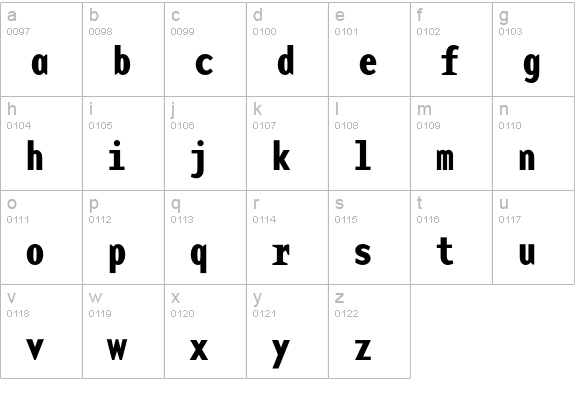
BaseMonoNarrowBold Font Details
BaseMonoNarrowBold is a sleek and modern typeface that combines the crispness of a monospaced font with a touch of boldness for added emphasis. Its narrow design makes it perfect for fitting more text in limited spaces without sacrificing readability. The bold weight adds a strong presence to any text, making it ideal for headers, titles, and other important elements in your designs. This versatile font is suitable for a wide range of design projects, from technical documents to branding materials to web graphics. Its clean lines and distinct characters make it easy to read at any size, while the bold weight ensures your message will stand out. Best of all, BaseMonoNarrowBold is available for free download at FontsMarket.com. Whether you're a designer looking to expand your font library or a student working on a project, this font is a valuable addition to your toolkit. Download BaseMonoNarrowBold today and elevate your designs with its modern and bold aesthetic.